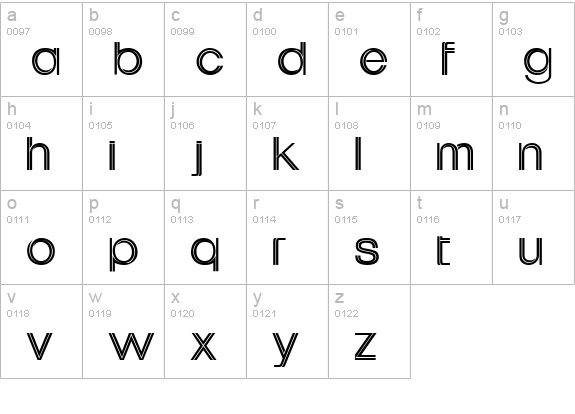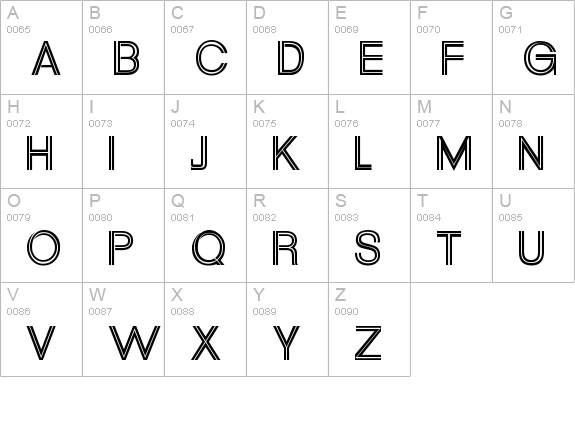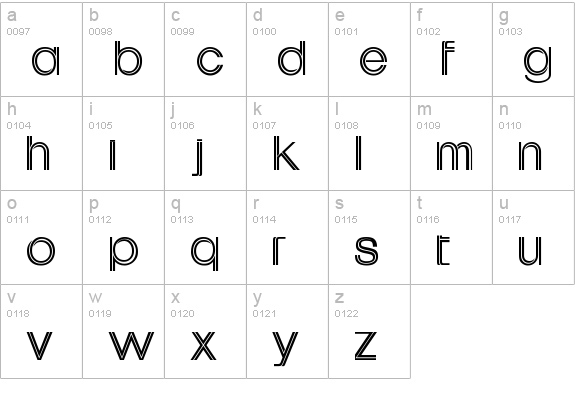
Uptight Font Details
Introducing Uptight font, a captivating typeface that effortlessly combines elegance with a touch of sophistication. With its sleek and refined letterforms, Uptight font exudes a sense of style that will instantly elevate any design project. This versatile font offers a wide range of applications, making it perfect for branding, logos, packaging, headlines, and so much more. Its clean lines and perfectly balanced proportions ensure readability, even at smaller sizes, while still commanding attention on larger displays. Uptight font's unique character lies in its impeccable attention to detail. Each letter has been meticulously crafted to create a harmonious balance between curves and straight edges, resulting in a timeless and contemporary typeface that is sure to stand the test of time. One of the most remarkable features of Uptight font is that it is completely free. Yes, you read that right! This extraordinary font is freely available to download at FontsMarket.com, allowing designers, creatives, and enthusiasts alike to effortlessly access its beauty and versatility without any cost. Whether you're a professional designer looking to add a touch of sophistication to your next project or a hobbyist seeking to explore the world of typography, Uptight font is the perfect choice. Its seamless integration into various design styles and its availability as a free download make it an invaluable asset for any creative endeavor. So why wait? Unlock the full potential of your designs with Uptight font, and experience the power and elegance of this extraordinary typeface. Download it for free at FontsMarket.com today and let your creativity soar to new heights.